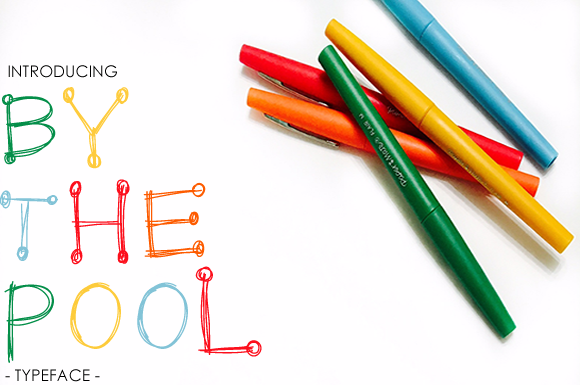
By the Pool Font
About By the Pool Font
By The Pool is a fun, child-like font that’s perfect for a wide range of projects and themes! This font has an airy, doodle-like vibe that works well in communicating youthfulness and charm.